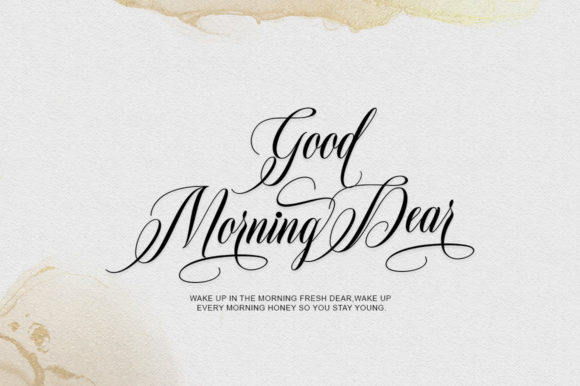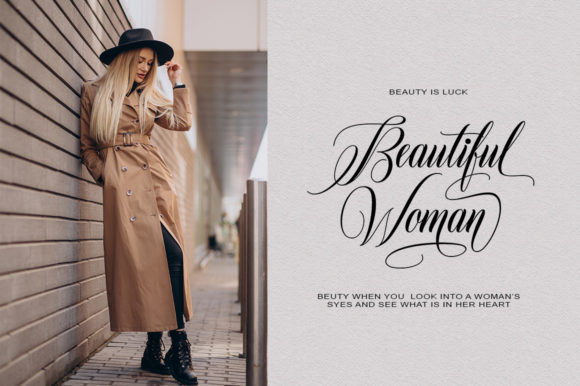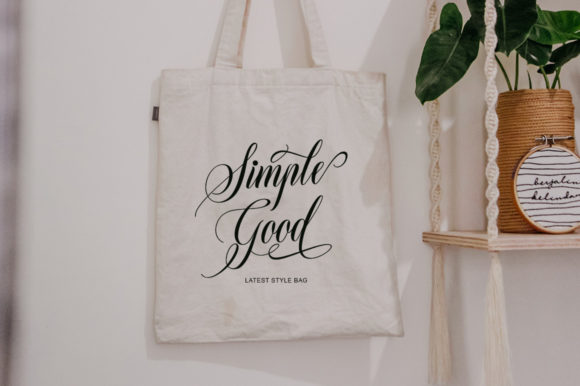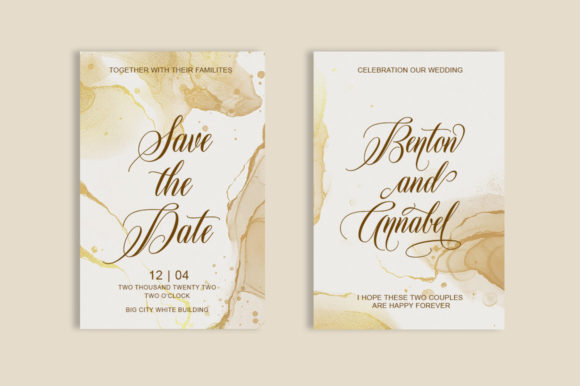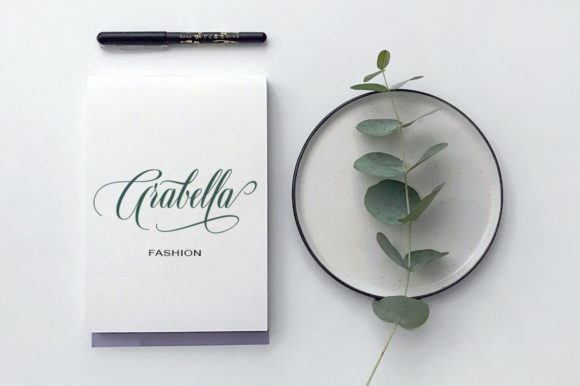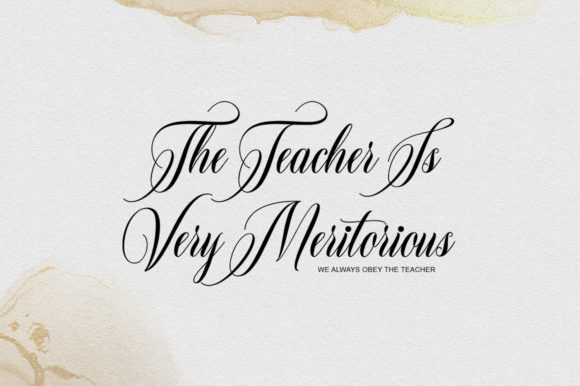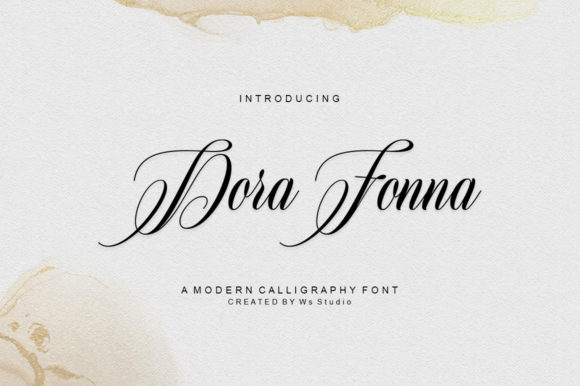
Dora Fonna Font: Elevate Your Designs with Elegance and Sophistication
Are you looking for a font that can add a touch of luxury and romance to your design projects? Look no further than the Dora Fonna Font. This beautiful calligraphic typeface is perfect for designers and crafters who want to create stunning visuals that exude elegance and sophistication.
What Makes Dora Fonna Font So Special?
Dora Fonna is a romantic and sweet calligraphic typeface that features characters dancing along the baseline. This unique design element adds a touch of whimsy and playfulness to any design project, making it perfect for a variety of applications, from wedding invitations and branding materials to packaging and advertising.
One of the standout features of Dora Fonna is its PUA (Private Use Area) encoding. This means that you can access all of the glyphs and swashes with ease, giving you complete creative control over your designs. With PUA encoding, you can easily insert special characters, ligatures, and swashes into your text, allowing you to customize your designs and make them truly unique.
Dora Fonna Font is a versatile typeface that is perfect for a wide range of design projects. Whether you’re a professional designer or a crafter looking to add a personal touch to your creations, this font is sure to impress. Here are just a few ways you can use Dora Fonna in your designs:
- Wedding Invitations: Add a touch of romance and elegance to your wedding invitations with Dora Fonna. This font is perfect for creating beautiful, custom invitations that will set the tone for your special day.
- Branding Materials: Use Dora Fonna to create stunning branding materials, such as logos, business cards, and letterheads. This font is sure to make your brand stand out and leave a lasting impression on your customers.
- Packaging: Add a touch of luxury to your packaging with Dora Fonna. This font is perfect for creating beautiful labels, tags, and other packaging materials that will make your products stand out on store shelves.
- Advertising: Use Dora Fonna to create eye-catching advertising materials, such as billboards, flyers, and brochures. This font is sure to grab attention and leave a lasting impression on your target audience.
Why Choose Dora Fonna Font?
There are many fonts available that claim to offer elegance and sophistication, but Dora Fonna stands out from the crowd. Here are just a few reasons why you should choose Dora Fonna for your design projects:
- Unique Design: Dora Fonna features a unique design that is sure to make your designs stand out. The characters dance along the baseline, adding a touch of whimsy and playfulness to any design project.
- PUA Encoding: With PUA encoding, you can access all of the glyphs and swashes with ease, giving you complete creative control over your designs.
- Versatility: Dora Fonna is a versatile typeface that is perfect for a wide range of design projects, from wedding invitations and branding materials to packaging and advertising.
- Elegance and Sophistication: Dora Fonna exudes elegance and sophistication, making it perfect for designers and crafters who want to create stunning visuals that impress.
In conclusion, Dora Fonna Font is a beautiful calligraphic typeface that is perfect for designers and crafters who want to add a touch of luxury and romance to their design projects. With its unique design, PUA encoding, and versatility, Dora Fonna is sure to elevate your designs and make them truly unforgettable. So why wait? Download Dora Fonna Font today and start creating stunning visuals that exude elegance and sophistication.